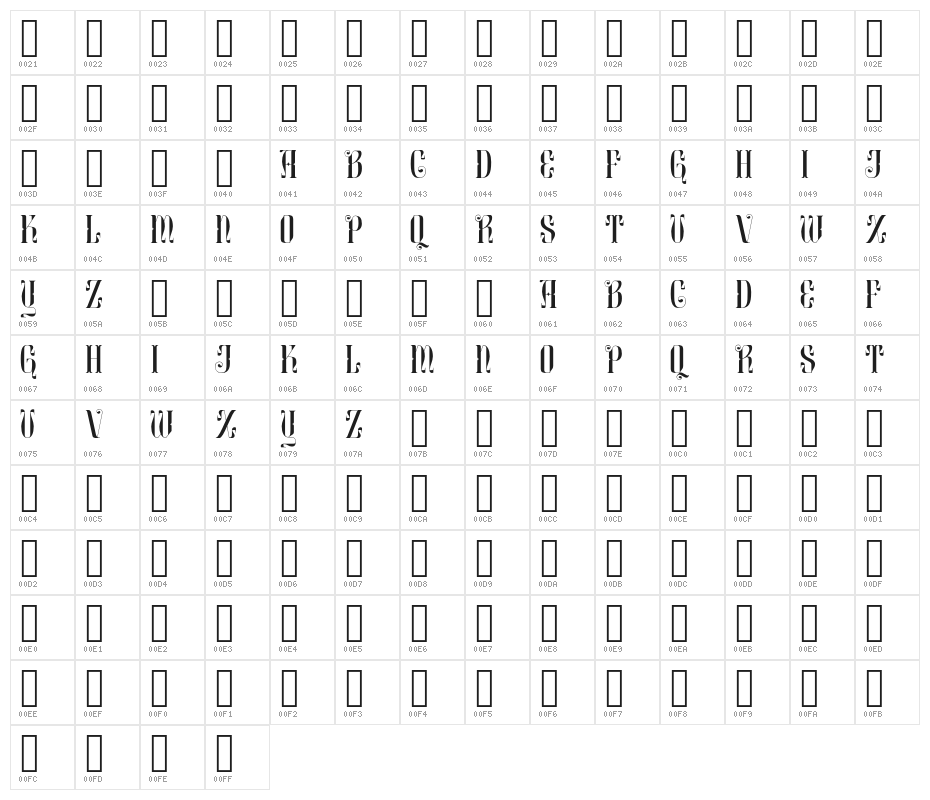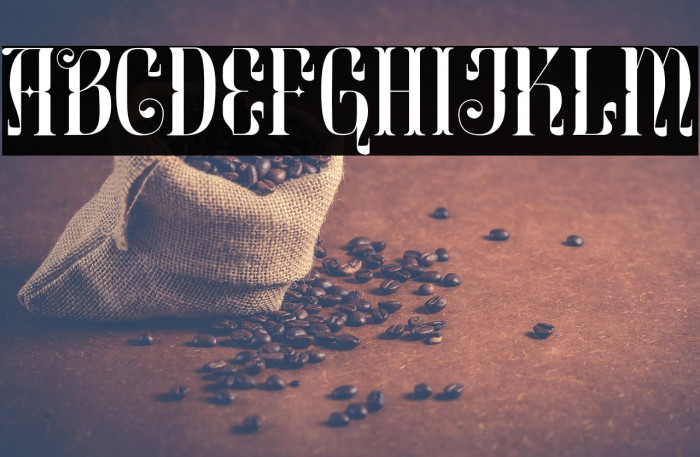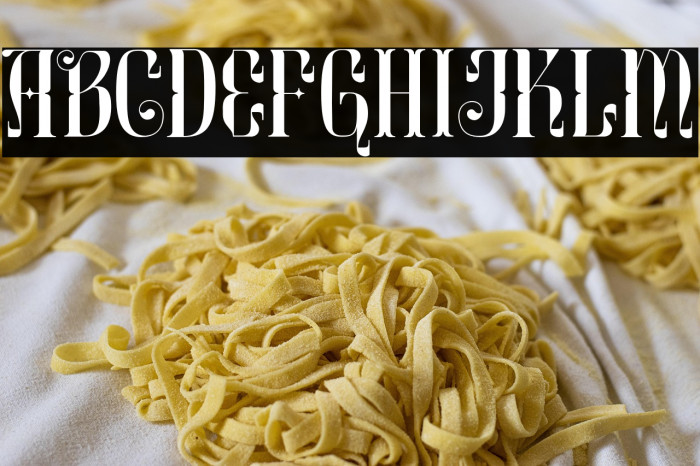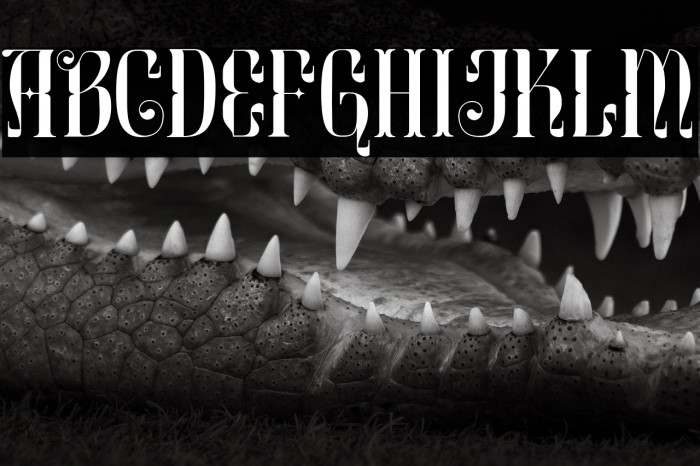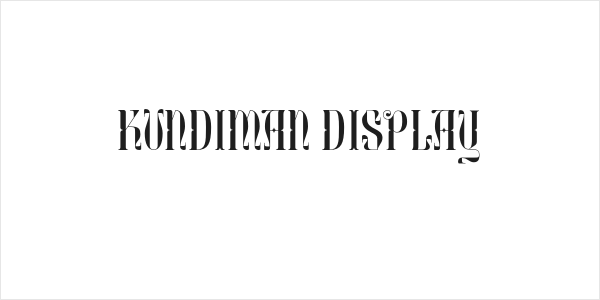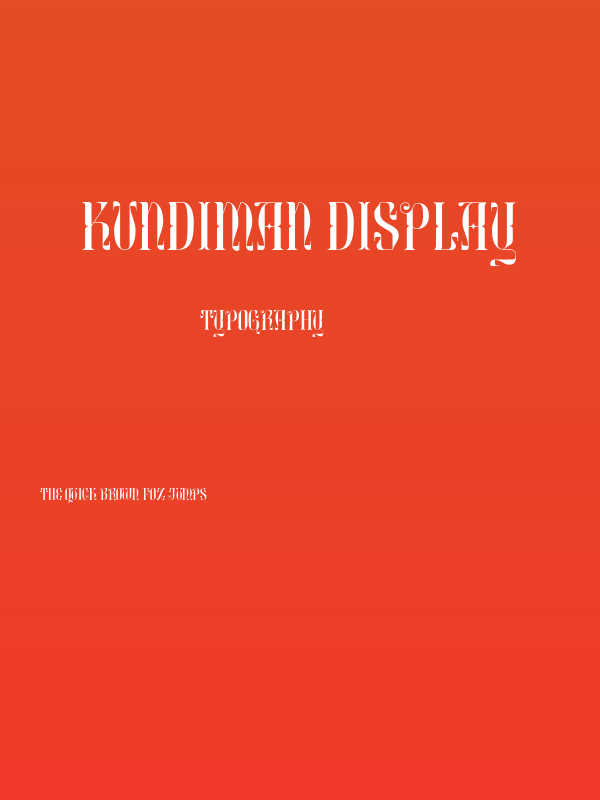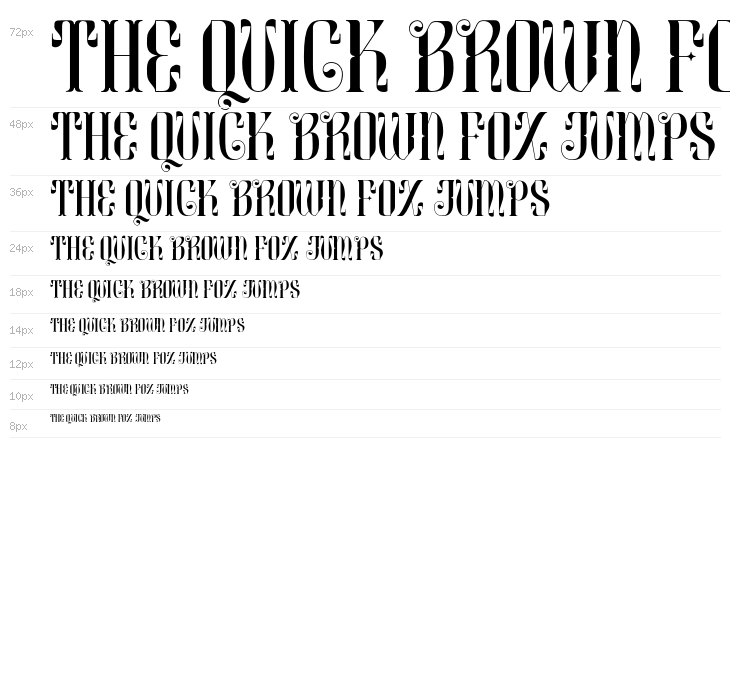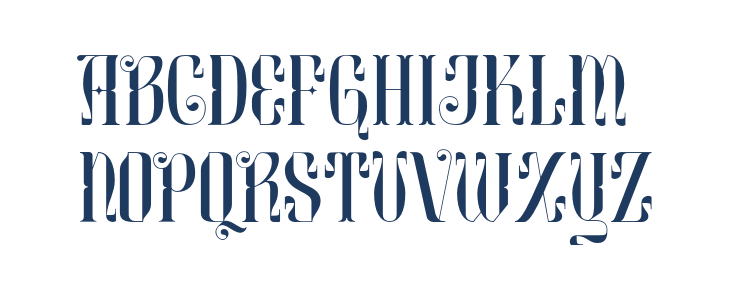
Kundiman Display Font
Kundiman Display Description
This font features a highly decorative and ornate style, characterized by its bold and elaborate serifs. Each letter is crafted with intricate swirls and flourishes, giving it a unique and artistic appearance. The uppercase letters are particularly striking, with a strong vertical emphasis and dramatic curves that add a sense of elegance and sophistication. The font's design is reminiscent of vintage or classical typography, making it ideal for projects that require a touch of grandeur and flair. Its distinctiveness makes it stand out, ensuring that any text set in this font will capture attention and convey a sense of luxury and refinement.
Overall StyleVintage
Proposed ProjectsIdeal for wedding invitations, luxury branding, book covers, and decorative posters.